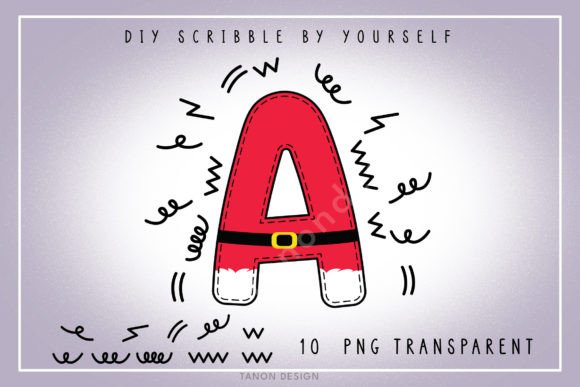
Xmas Santa Font
Xmas Santa color font. It will look fantastic on all your Christmas-themed designs including t-shirt designs, mug designs, digital designs, crafts, cards, and any projects! You will receive 1 OTF Color Fonts and all PNG transparent files 3000px and PNG elements.